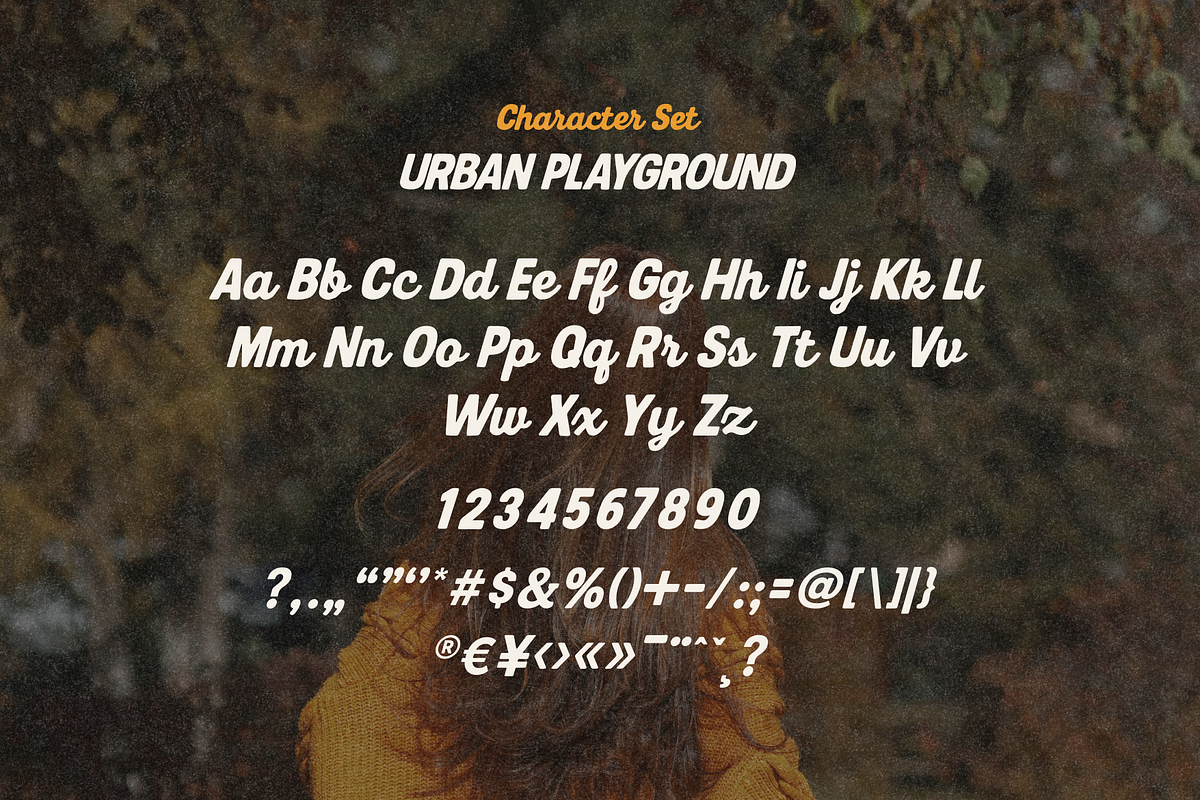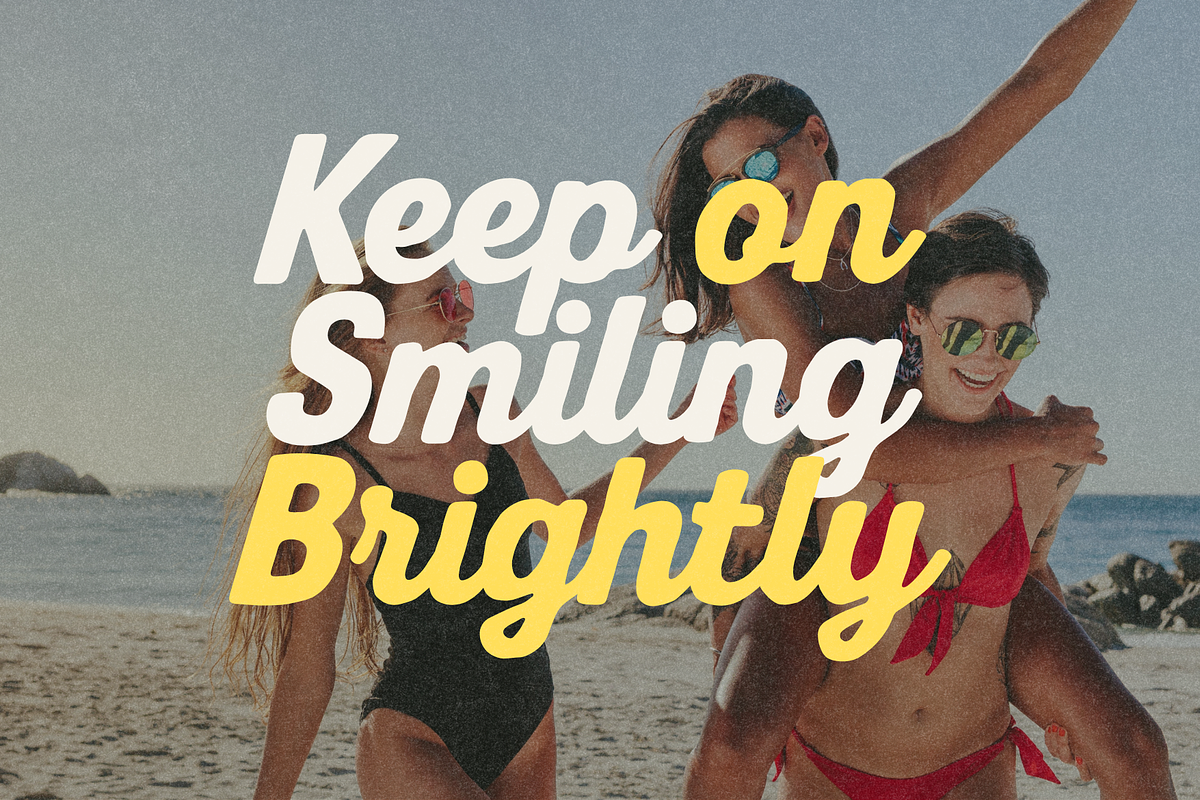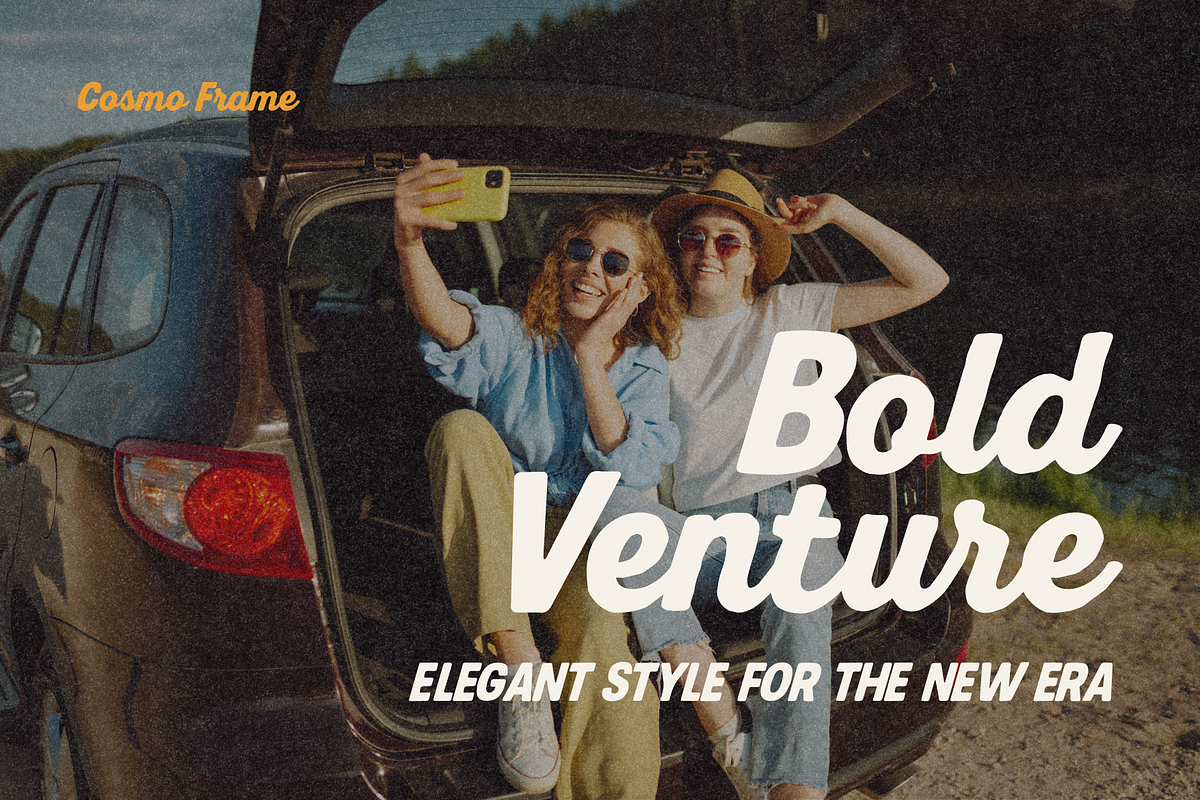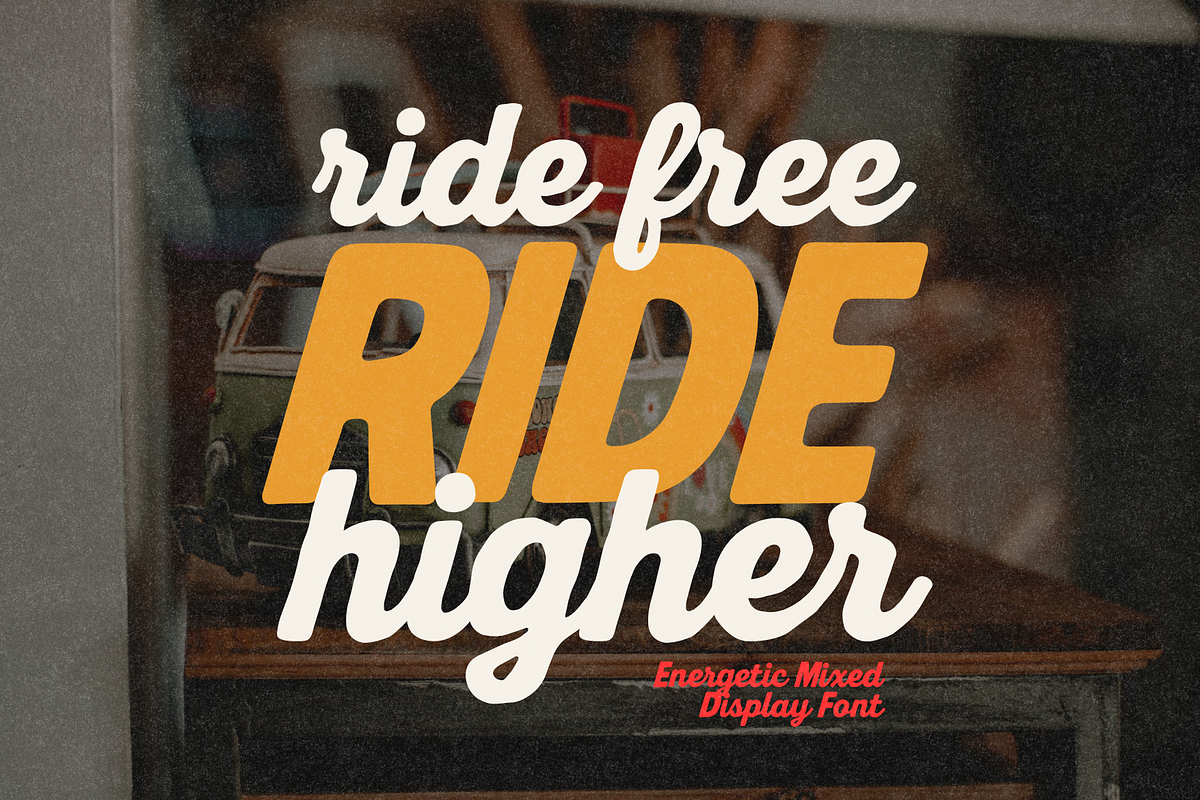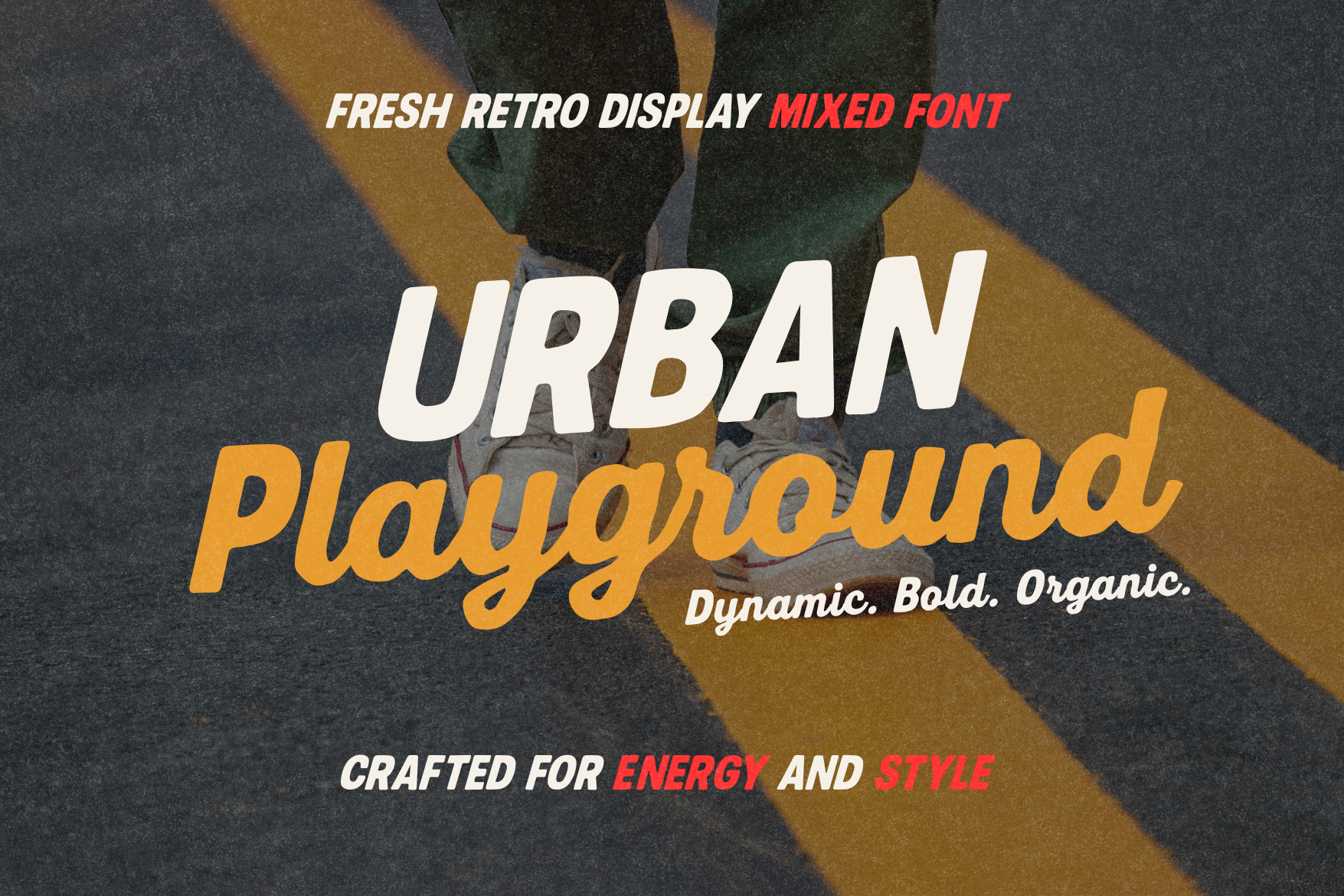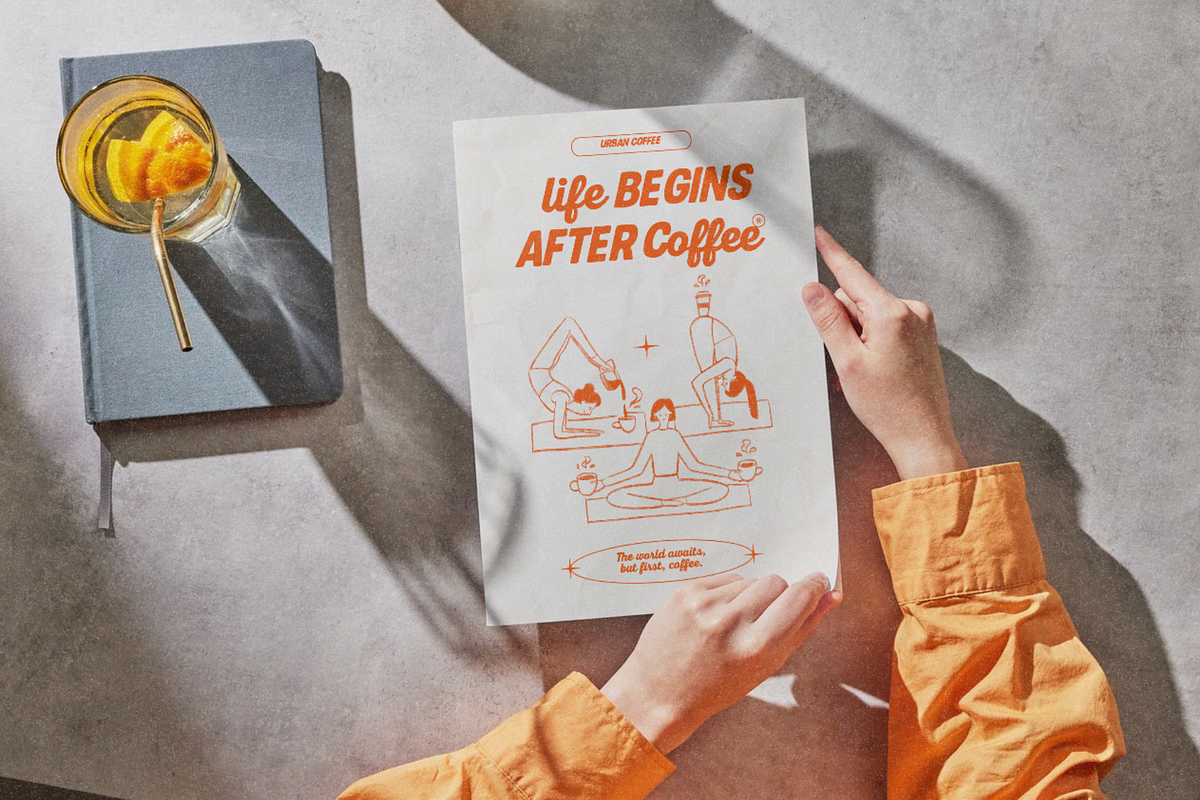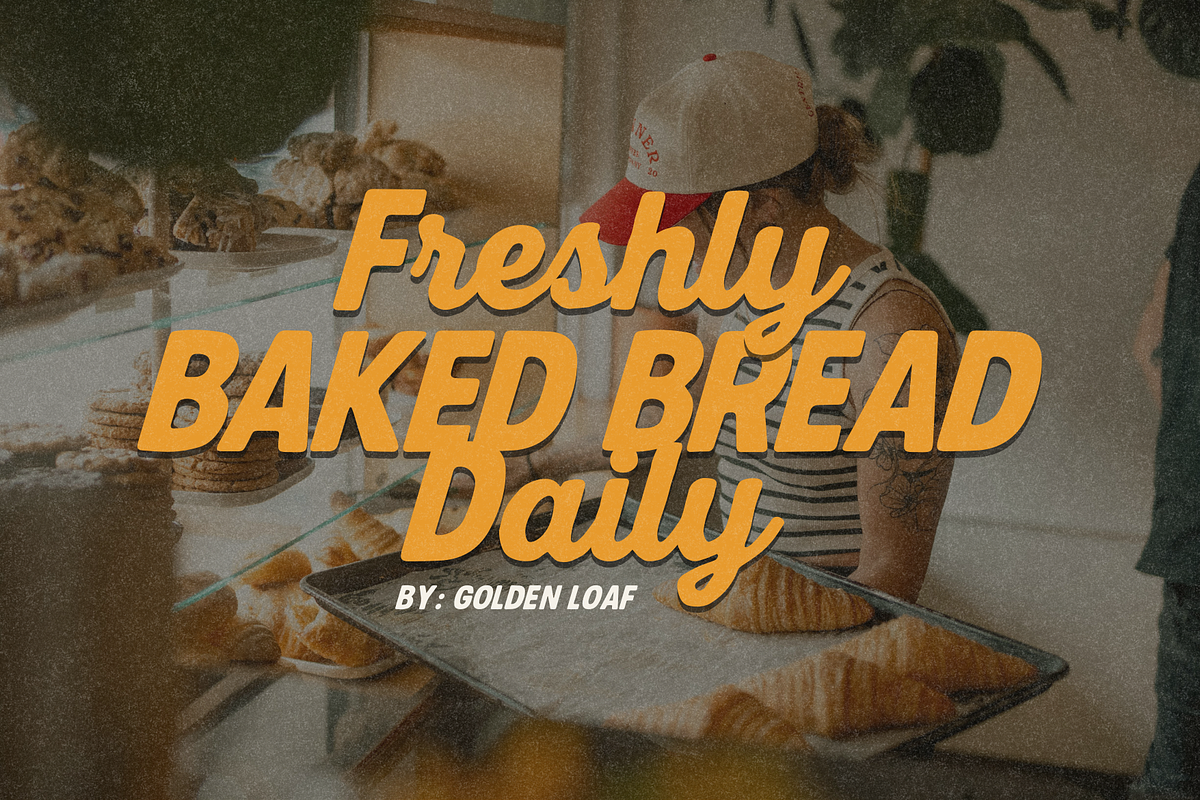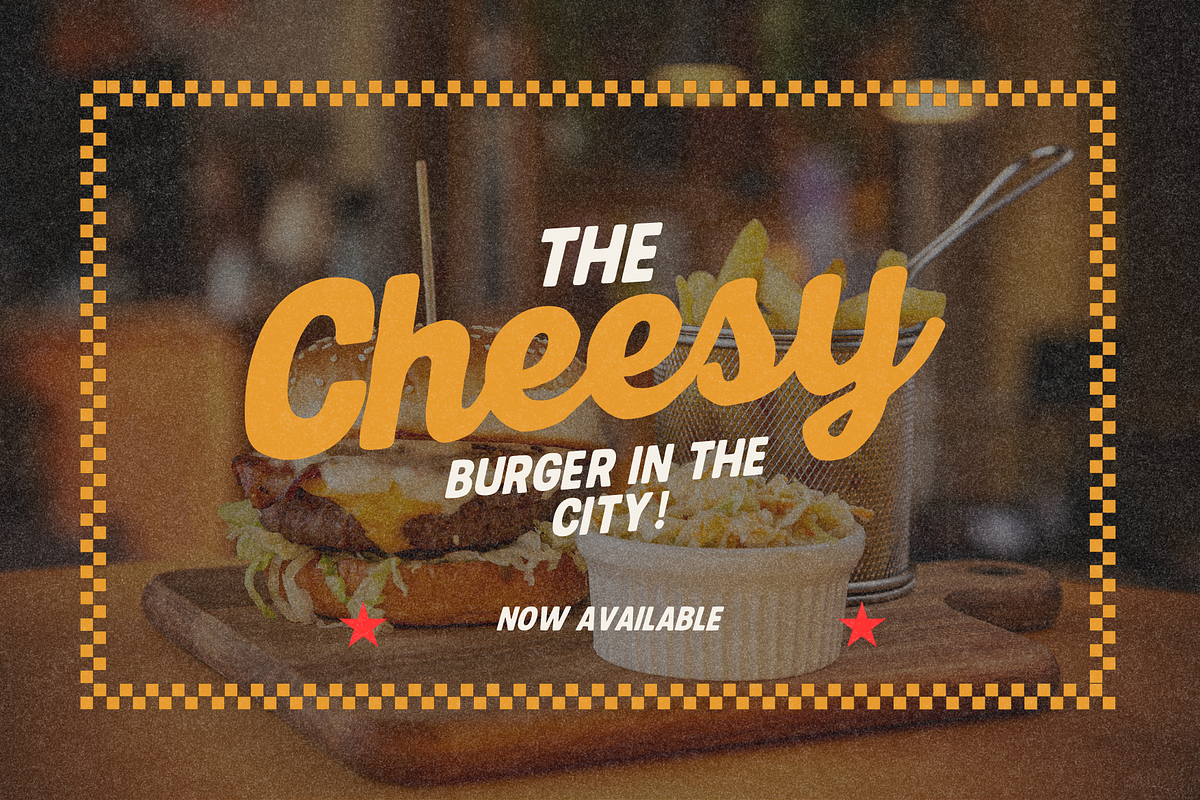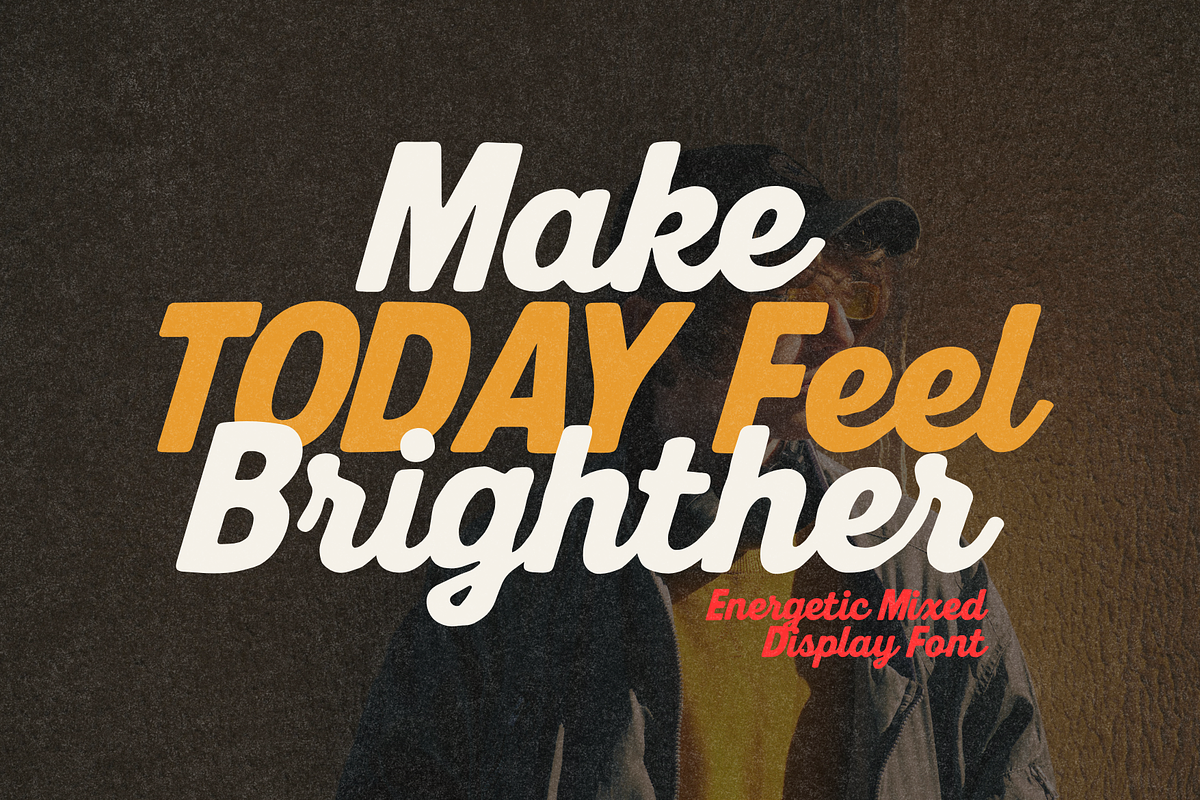
Urban Playground – Mixed Font
Urban Playground is a playful mixed-style font that blends bold modern shapes with casual handwritten charm. Its dynamic personality makes it perfect for projects that need a fun, youthful, and urban vibe.
Whether used for logos, posters, packaging, apparel, or social media, this font instantly adds energy and character to your design.
Great for:
- Streetwear & Urban Branding
- Music & Event Posters
- Cafe & Food Packaging
- Bold Quotes & Social Media Posts
- Creative Editorials
Bring bold energy to your designs with Urban Playground—a font that celebrates creativity, fun, and street-smart style.